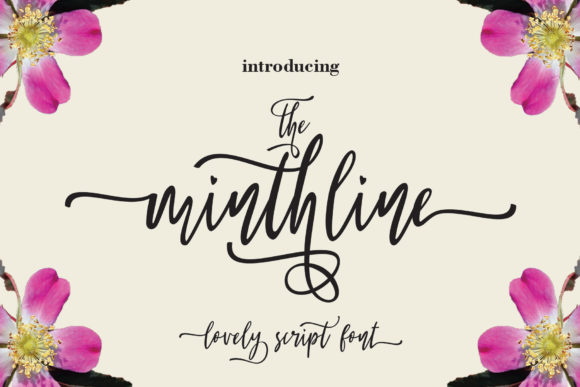
The Minthline Script Font
Welcome to the world of The Minthline Script Font, a calligraphy masterpiece that will captivate your senses and leave you awe-inspired. This script font is a symphony of smooth lines and elegant curves, meticulously crafted by Arie Design to bring an artistic touch to your digital creations. With its flowing style and enchanting appeal, The Minthline Script Font is the perfect choice for adding a touch of sophistication to your designs.
Unleash your creativity and let your imagination run wild as you explore the endless possibilities of this remarkable font. From heartfelt wedding invitations to enchanting logos, from captivating social media posts to stunning branding materials, The Minthline Script Font will transform your words into exquisite works of art. Each letter is a testament to the artistry of its design, a visual masterpiece that will elevate your projects to new heights of beauty and elegance.
With The Minthline Script Font, you'll discover a world of endless possibilities, where your ideas take shape in a symphony of graceful lines and captivating curves. Embrace the power of this font and watch as your designs blossom into breathtaking masterpieces that will leave a lasting impression on all who see them.